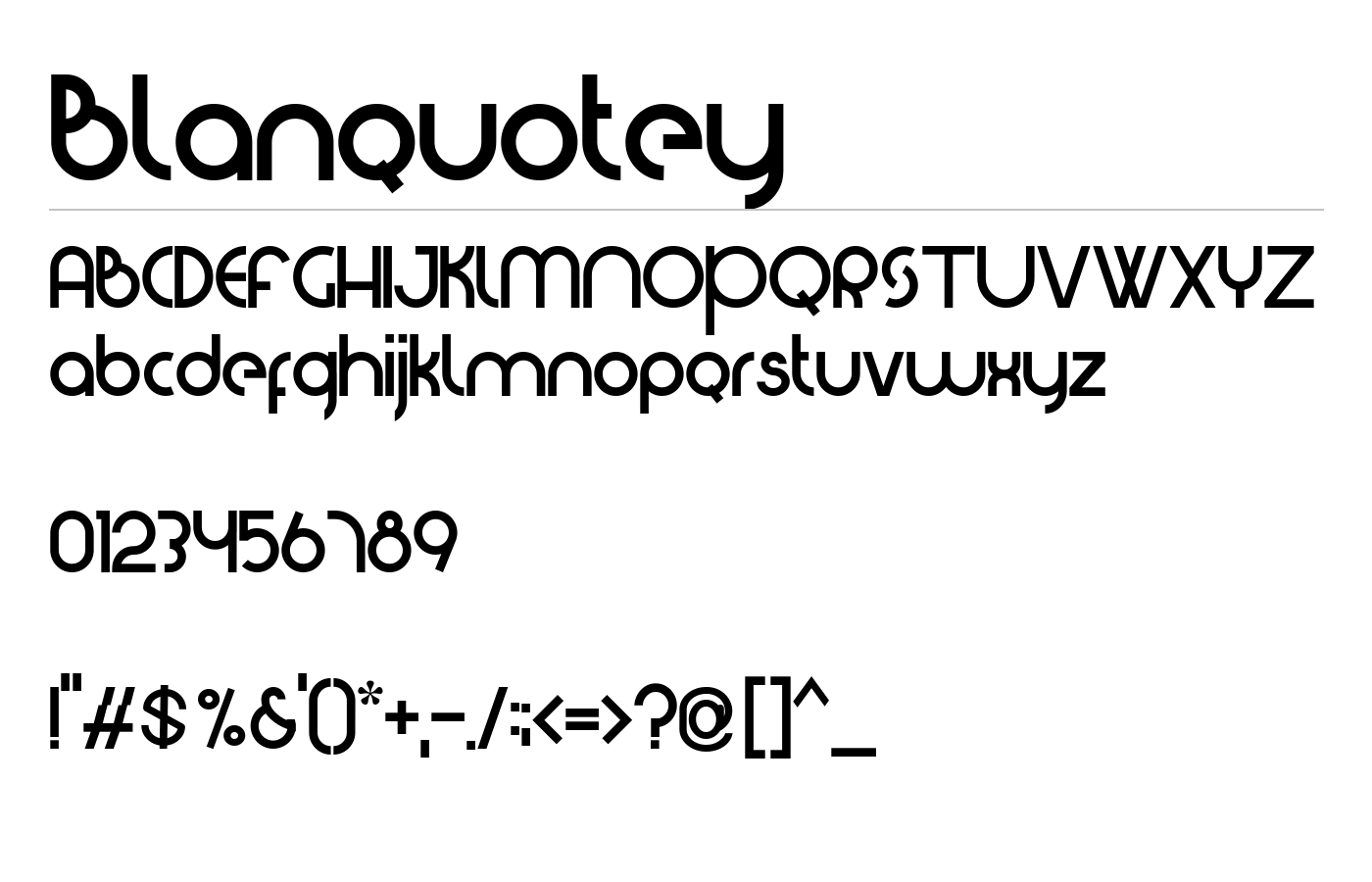
Blanquotey is a modern, geometric sans serif font with a bold weight and unique, artistic letterforms that blend rounded and sharp edges. Its high x-height and clean strokes give it a contemporary yet playful feel, making it ideal for eye-catching headlines, branding, and creative designs that want to stand out with a stylish, futuristic vibe. This font works well in logos, posters, and fashion-related projects where a distinct, memorable look is important.
Blanquotey Font
About Blanquotey Font
| Font family | Blanquotey Font |
| Designer | Surya Iswandi |